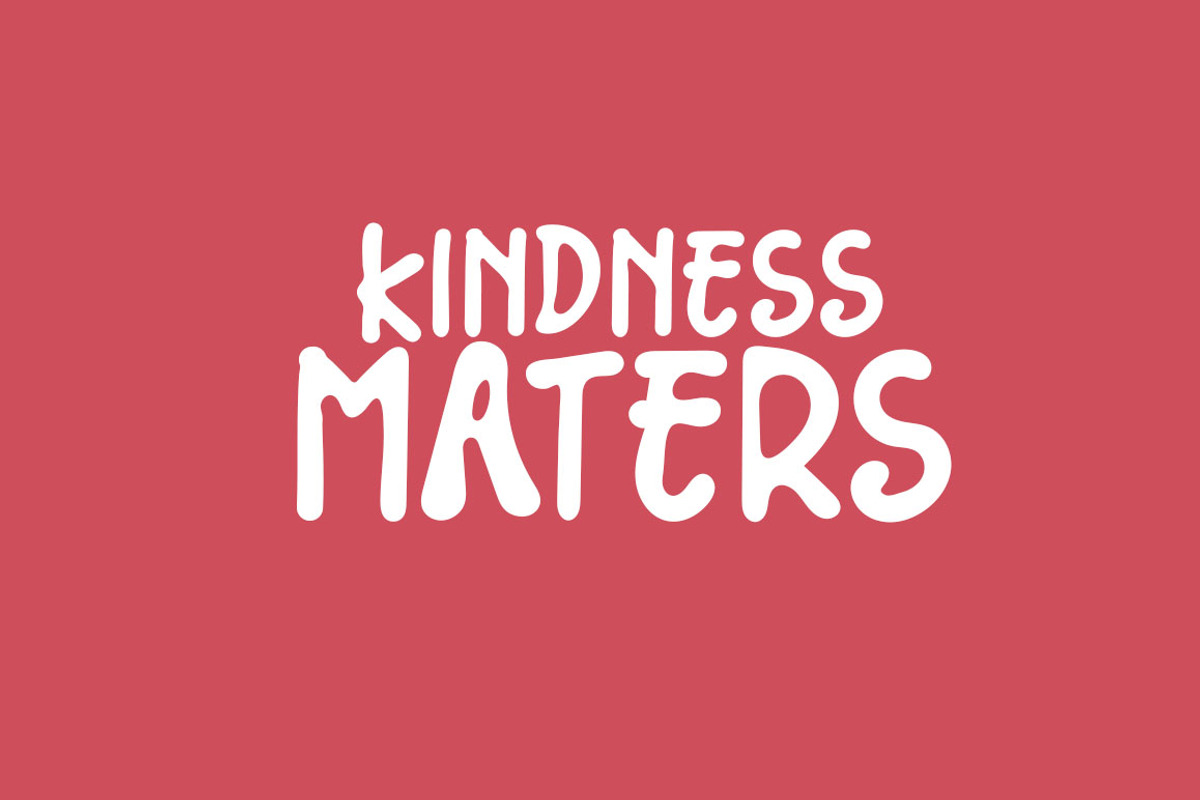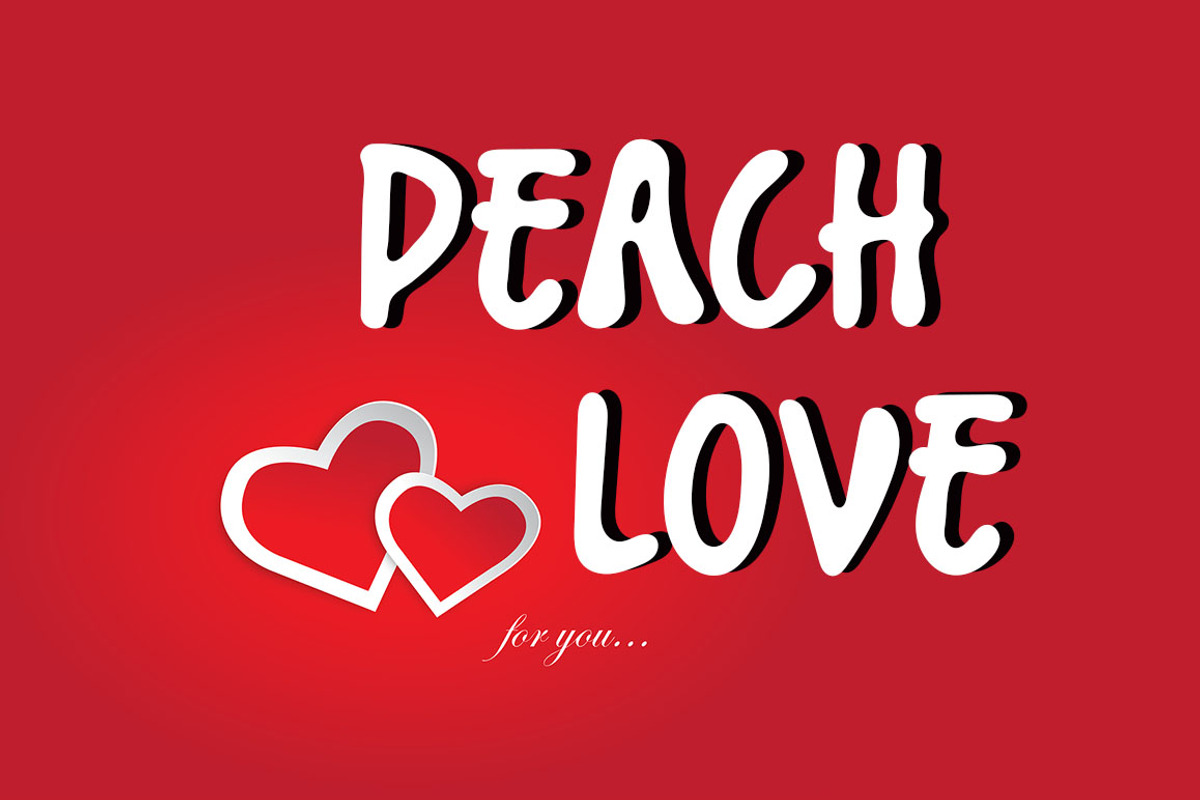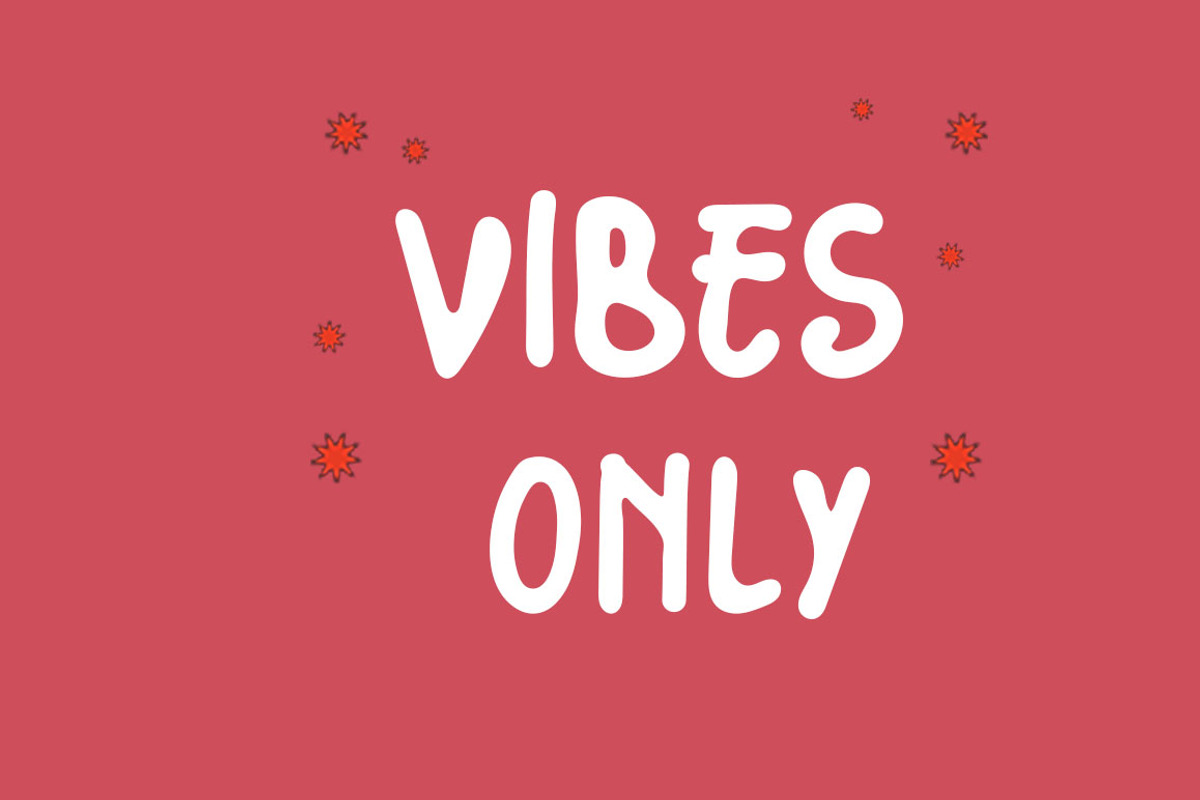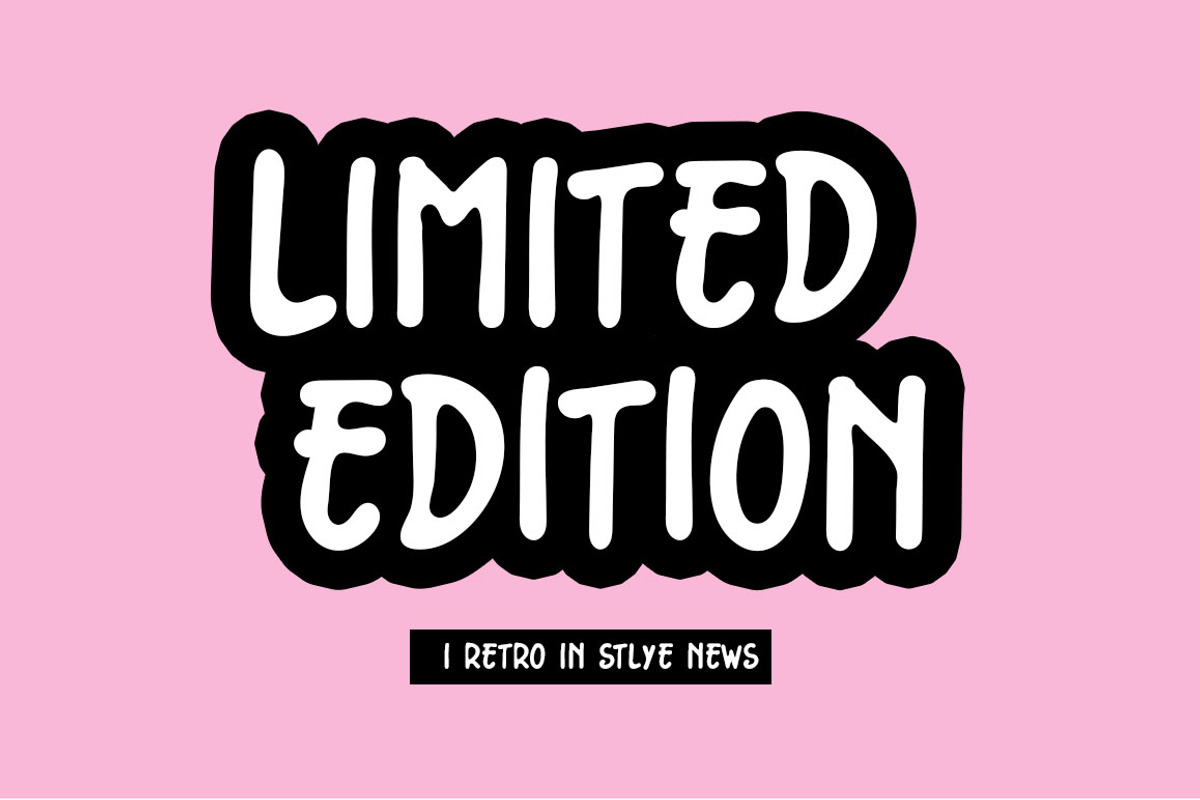
LIMITED EDITION FONT
This font comes with a regular solid version, fonts work together to layer your perfect vintage design!
Limited Edition is perfect for branding, logos, social media quotes, stickers, posters, vintage designs, wall art and more!